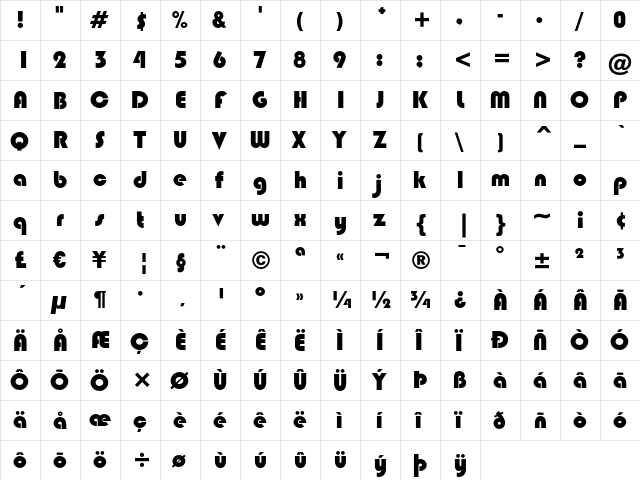
Blippo Black
Design Context for Blippo Typeface
Blippo is a composed and adaptable typeface that performs quietly and consistently across a wide range of design contexts.